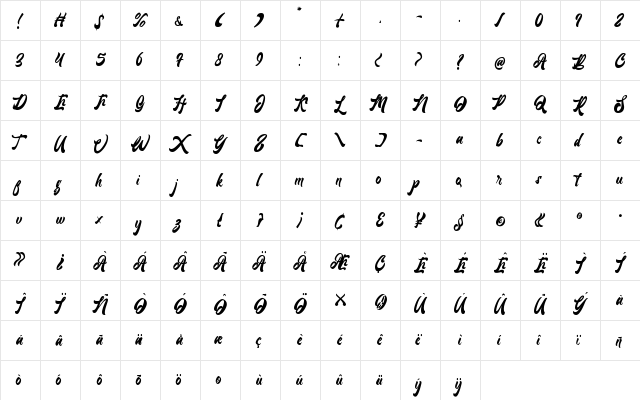
Lantenia Regular Font Preview
Lantenia Regular
Lantenia Regular Font Details
| Foundry | typotopia |
| Designer | typotopia |
Design Context for Lantenia Typeface
Lantenia is a composed and adaptable typeface that performs quietly and consistently across a wide range of design contexts.